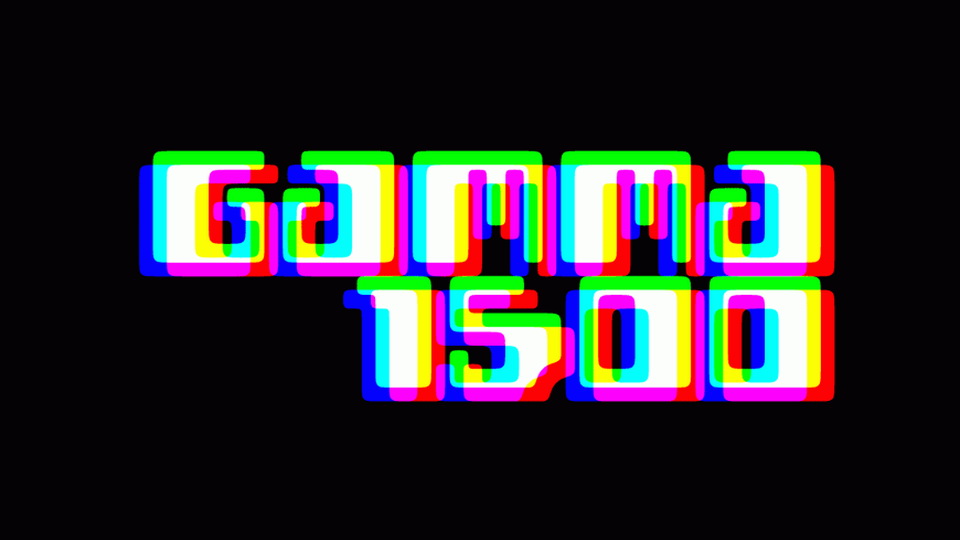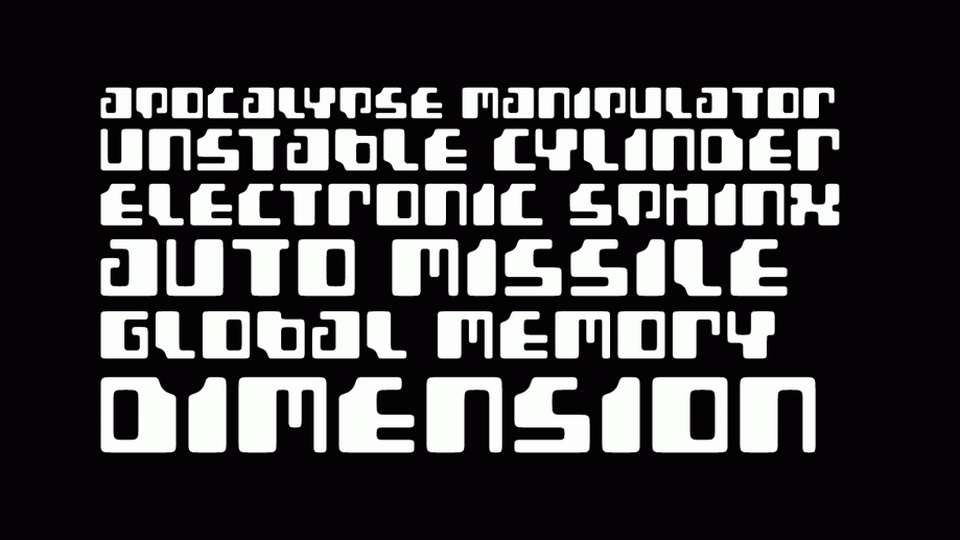
Gamma 1500 is a bold techno display font with a sci-fi look. The font inspired mostly by the fascinating interface between dystopian and utopian science fiction, and using forms based on actual and imagined computer technology from the late 1960s.